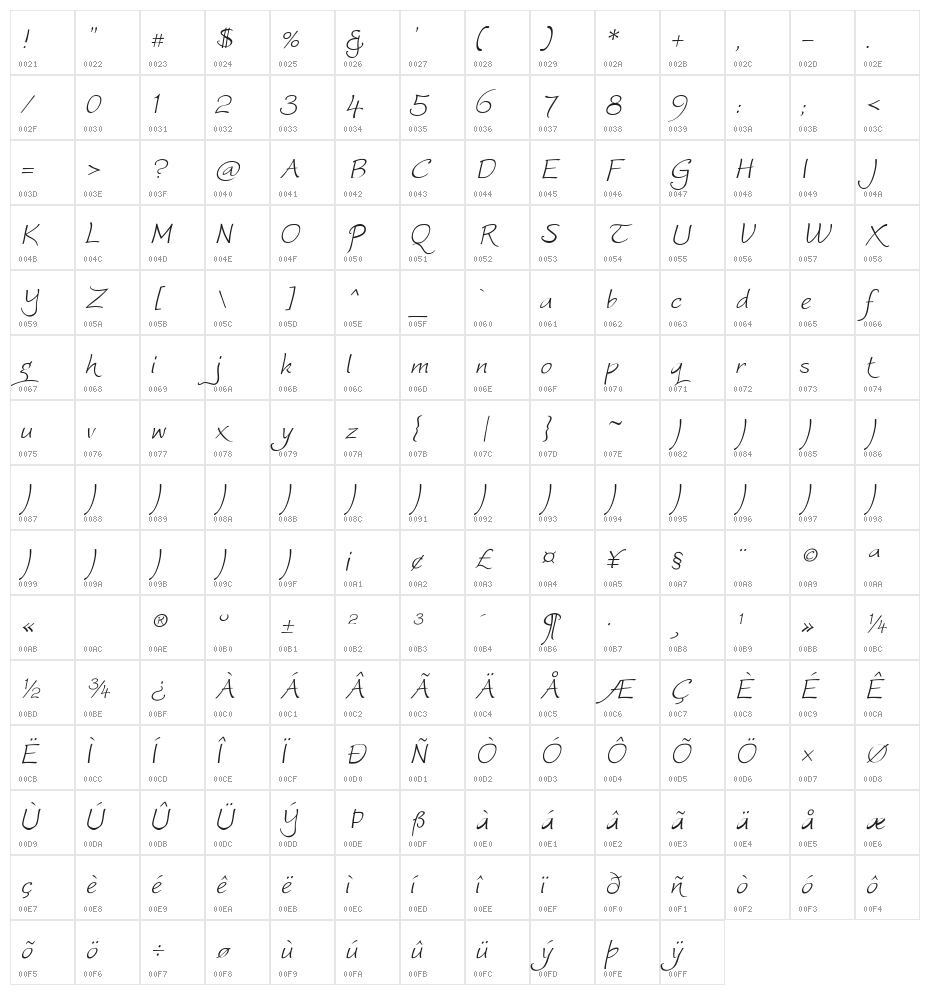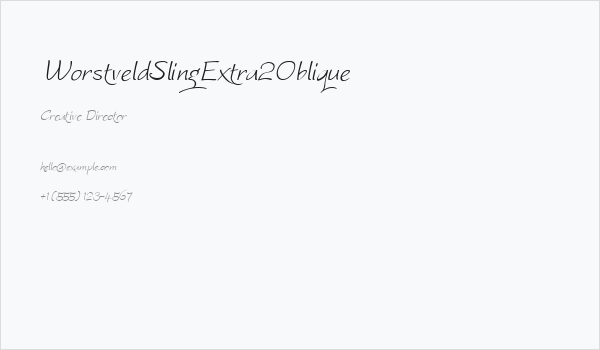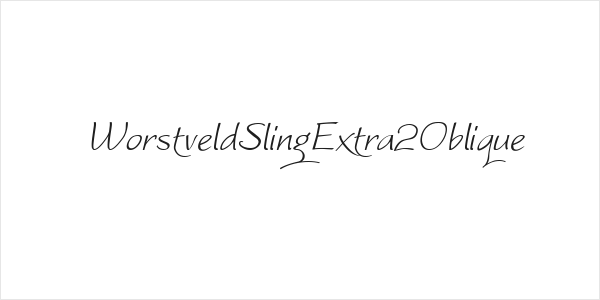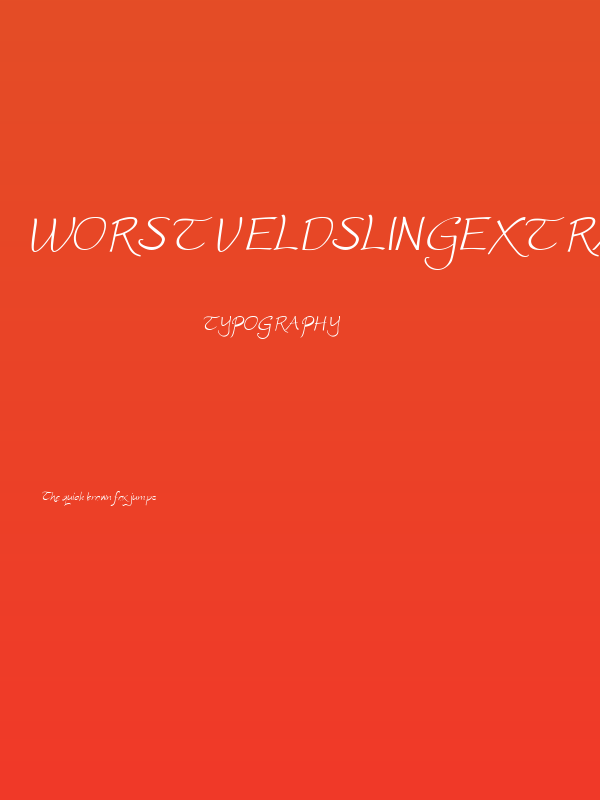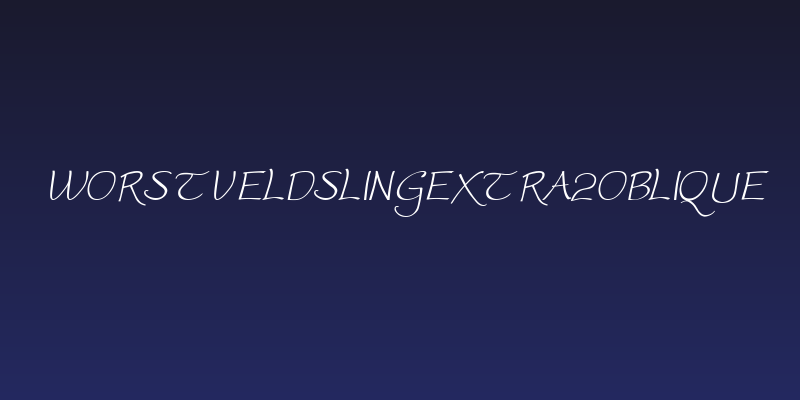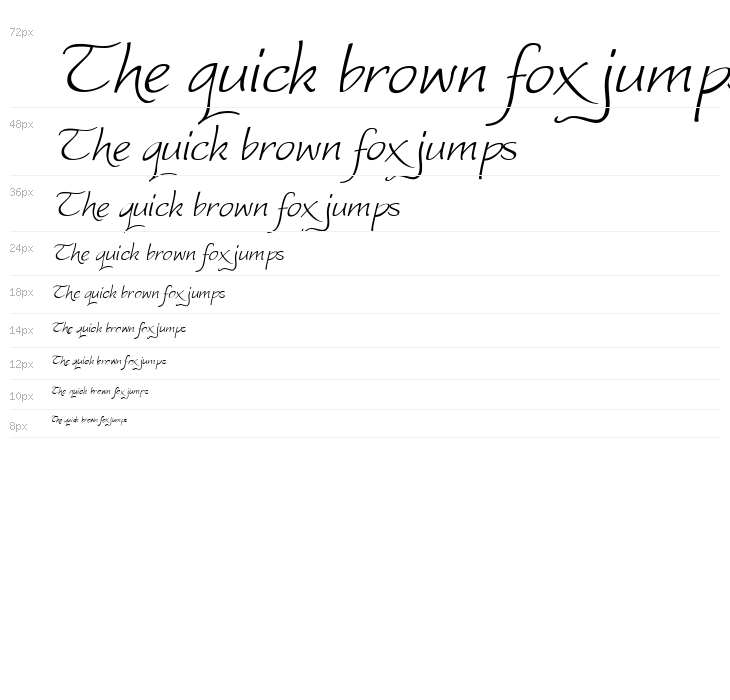
WorstveldSlingExtra2Oblique Font
WorstveldSlingExtra2Oblique Description
This font exhibits a distinctive, flowing style with a pronounced oblique slant, giving it an elegant and dynamic appearance. The characters are crafted with a calligraphic influence, featuring smooth, sweeping curves and delicate strokes. The uppercase letters are tall and slender, while the lowercase letters maintain a consistent rhythm with subtle variations in stroke width. The numerals are harmoniously integrated, matching the overall aesthetic with their graceful curves. Special characters are thoughtfully designed, complementing the font's artistic flair. This font's unique style makes it suitable for creative and expressive projects.
| Proposed Projects | Ideal for wedding invitations, greeting cards, artistic posters, and branding materials that require a touch of elegance and creativity. |